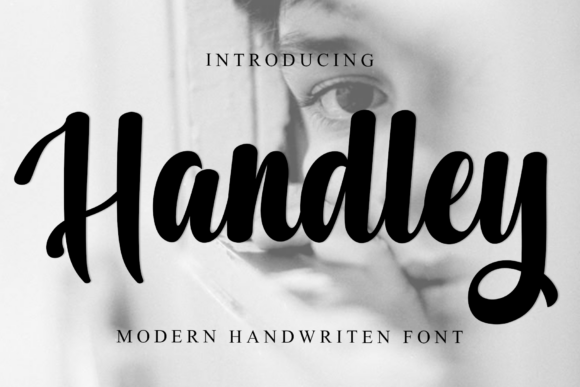
Handley: A Festive Typeface for Holiday Designs
Looking for a typeface that instantly brings the joy and warmth of the holiday season to your designs? Handley is a festive and merry typeface that captures the spirit of the holidays perfectly. With its decorative elements and whimsical flair, this font adds a touch of enchantment to any project, making it an excellent choice for creators seeking a cheerful and nostalgic ambiance.
As a premium display font, Handley is designed to stand out. It’s not a typical serif or sans serif font; instead, it falls into the category of creative fonts with a strong personality. This makes it particularly well-suited for projects where typography needs to make an immediate visual impact. Think beyond standard body text—this is a typeface for headlines, logos, and special accents that demand attention.
Creative Uses for a Festive Font
The versatility of a decorative font like Handley allows it to shine across a wide range of applications. Its whimsical character is ideal for:
- Greeting Cards & Invitations: Create memorable holiday cards, party invitations, or thank-you notes that feel personal and handcrafted.
- Packaging & Gift Tags: Elevate product packaging for seasonal goods or design beautiful gift tags that add a special touch to presents.
- Social Media Graphics: Design eye-catching posts, story templates, or promotional banners for holiday sales and events.
- Poster & Editorial Design: Use it for festive poster headings, magazine features, or blog graphics related to celebrations and winter themes.
- Brand Identity & Logo Design: For businesses with a playful, nostalgic, or family-oriented brand, this font can help craft a unique logo or seasonal branding assets.
Tips for Choosing and Using This Typeface
When incorporating any creative font into your work, a few practical considerations can ensure the best results. First, always check the readability of Handley at the size you plan to use it. Its decorative nature is perfect for display purposes, but it’s best paired with a simpler, more legible font for longer passages of text. This creates a balanced and professional font pairing.
Next, consider the mood of your project. This font excels in contexts that call for joy, nostalgia, and celebration. It may not be the right fit for a corporate report, but it’s perfect for a bakery’s holiday menu or a community event poster. Reviewing all the available glyphs and ligatures is also worthwhile, as they can provide unique stylistic options to customize your typography further.
Choosing the right typeface is a fundamental step in creating polished and effective designs. A well-crafted font like Handley does more than just display words; it communicates a feeling, enhances brand recognition, and brings a cohesive visual story to life. By selecting a typeface that aligns with your project’s theme and audience, you invest in the overall quality and impact of your creative work.